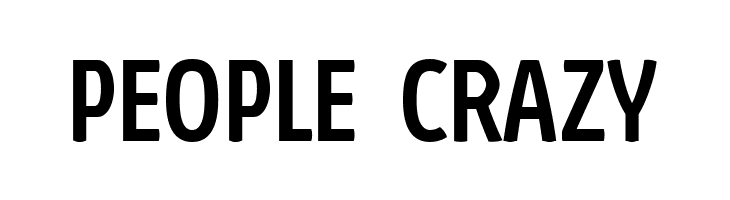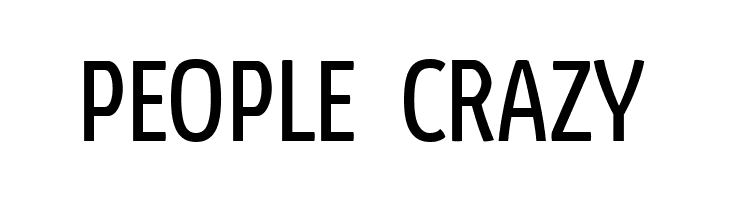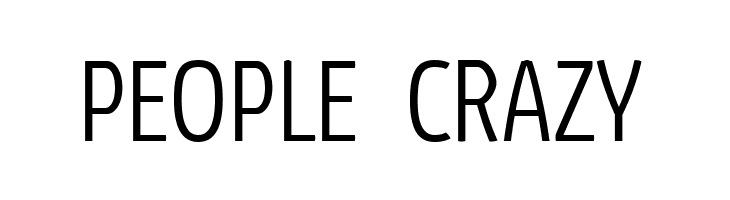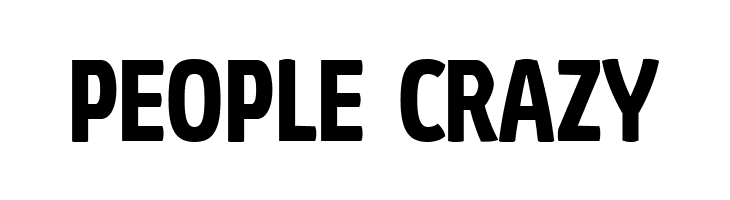
A bold, condensed font with a modern and impactful style.
A modern, condensed font with smooth, rounded strokes and a professional appearance.
A modern, condensed sans-serif font with a sleek, uniform design.
A modern, condensed sans-serif font with bold, uniform strokes and tight spacing.